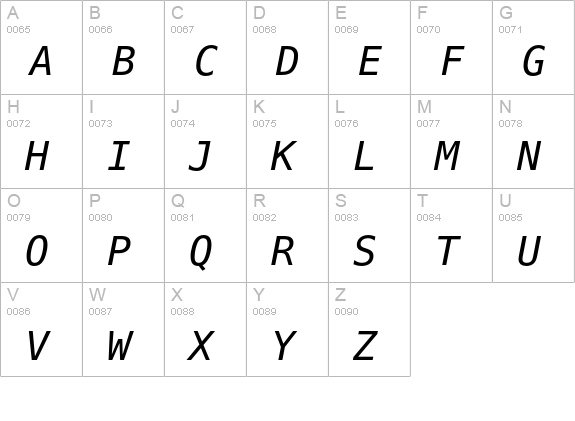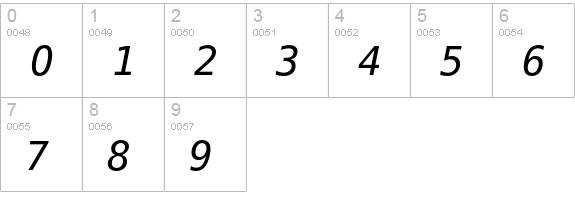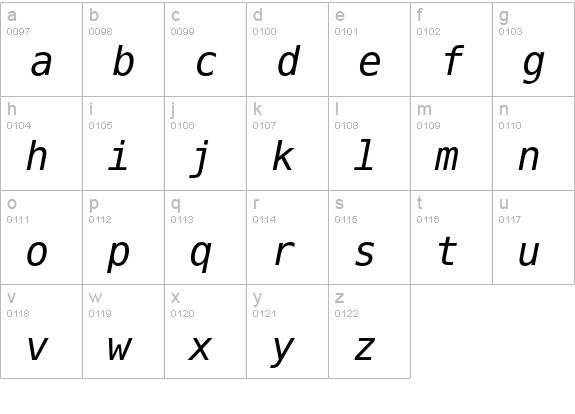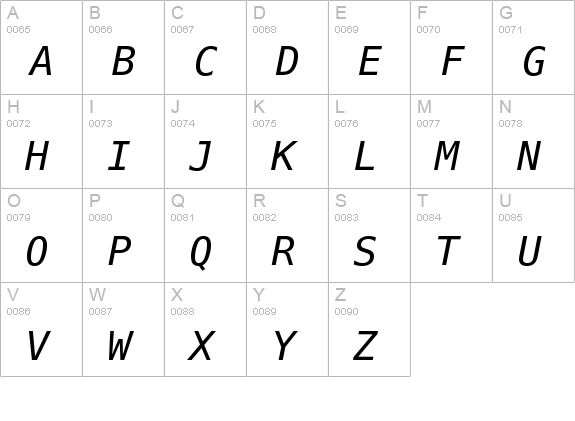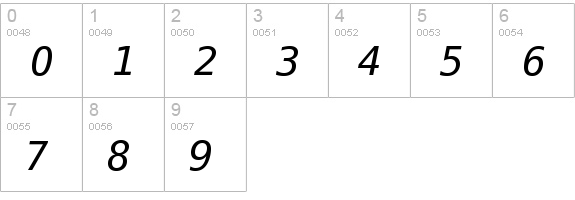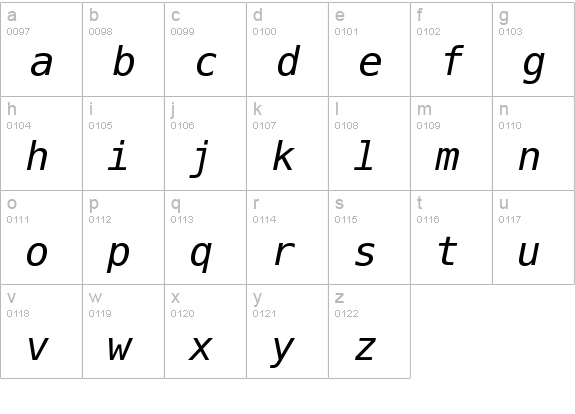
Prima Sans Mono Oblique Font Details
Prima Sans Mono Oblique is a distinctive, italic variant in the Prima typeface family \xE2\x80\x94 well suited to design and typography projects.
Prima Sans Mono Oblique is a modern and stylish monospaced font that exudes sophistication and versatility. Its sleek and slanted design adds a touch of elegance to any project, making it perfect for a wide range of creative endeavors. Whether you're designing a website, creating a logo, or working on a print project, Prima Sans Mono Oblique is sure to make a bold statement. What's even better is that this fantastic font is available for free download at FontsMarket.com. Yes, you read that right - you can get your hands on this premium typeface without spending a dime. So why wait? Elevate your designs with Prima Sans Mono Oblique today and see the difference it makes!